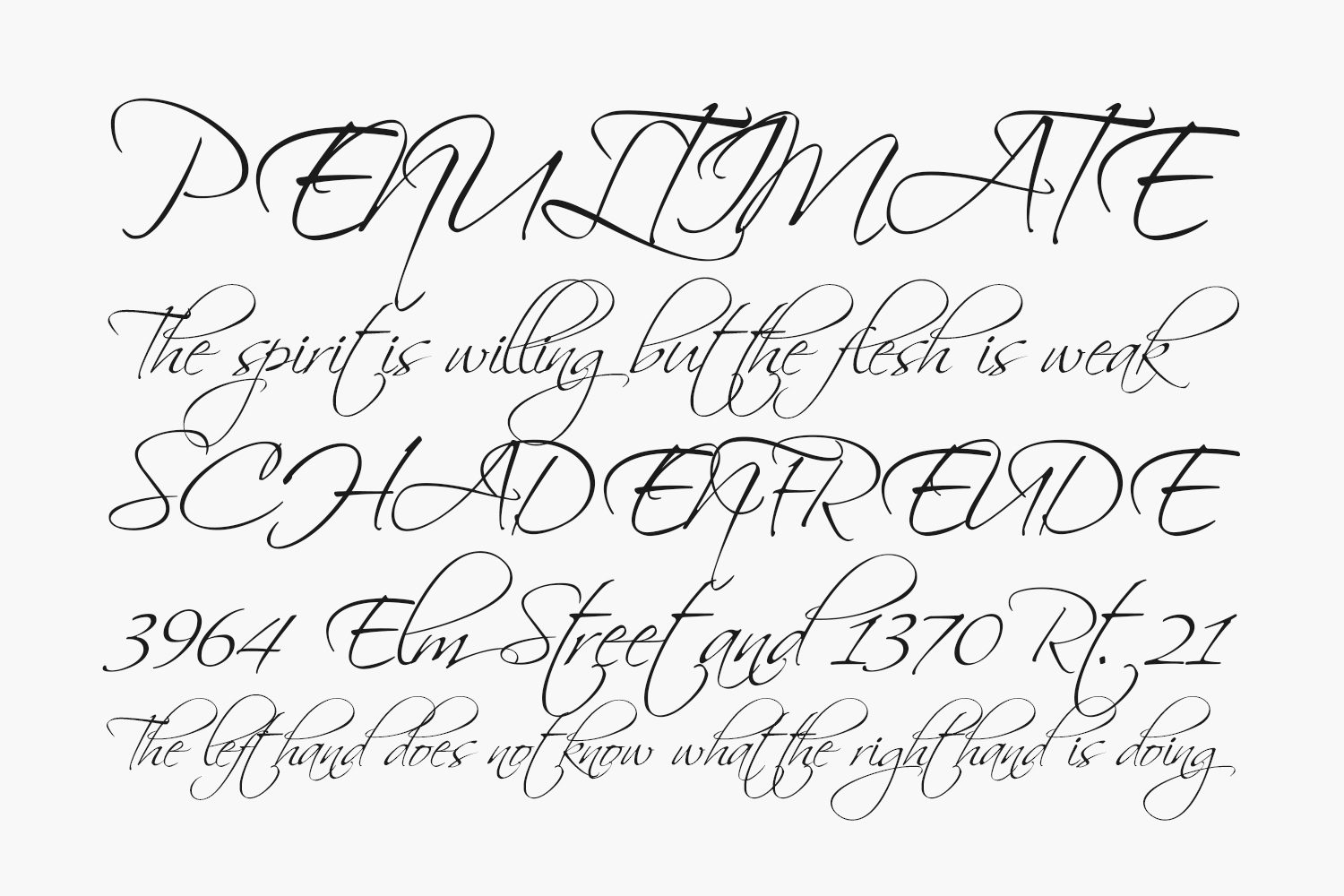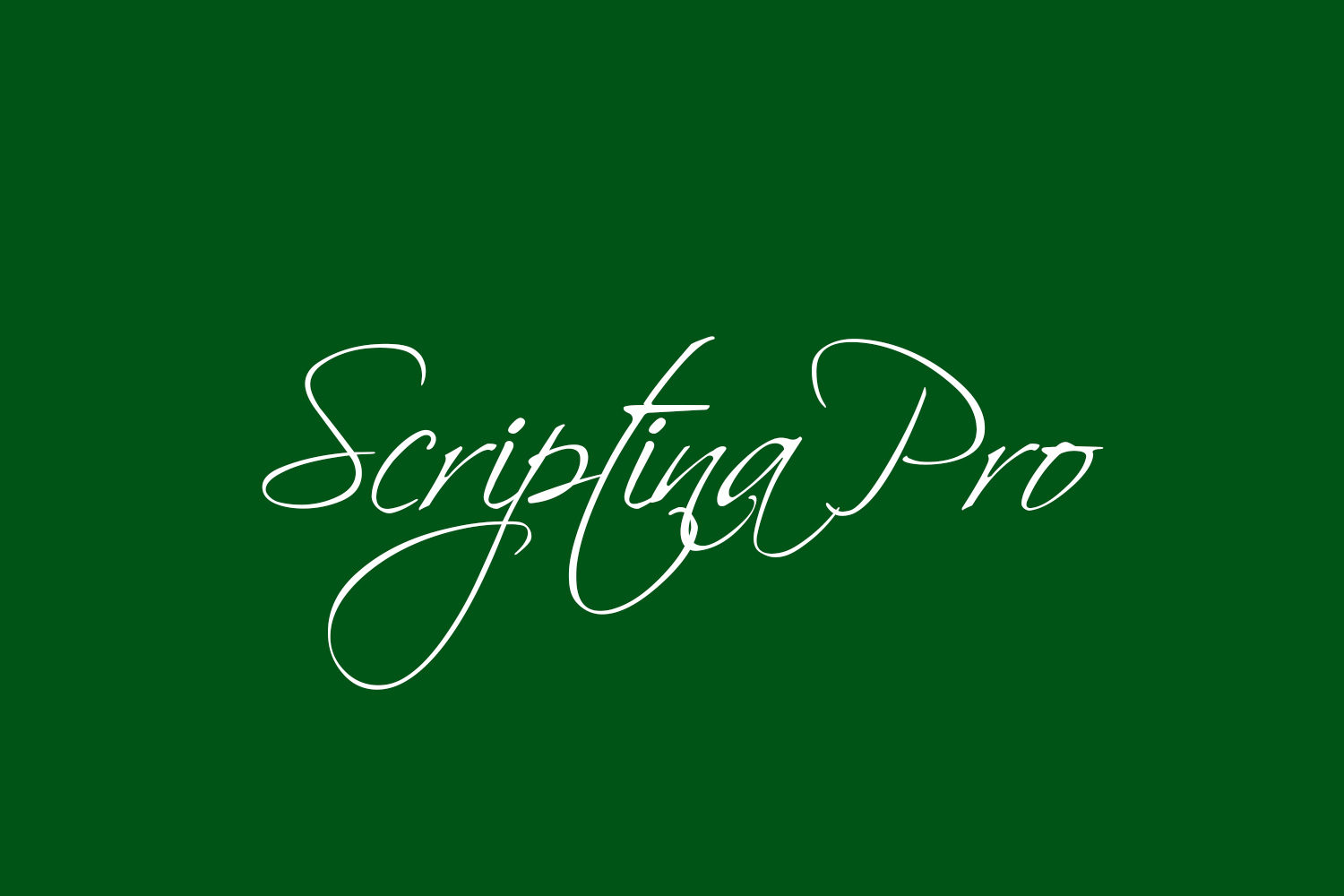
This is the 100th font released by CheapProFonts, and I wanted to make something special – so I have chosen to upgrade one of the most popular free fonts ever: the one and only Scriptina by the infamous Fredrick “Apostrophe” Nader!
After first cleaning up the outlines, spacing and kerning, Scriptina Pro Free Font has been expanded with a set of alternate letters without the loops and swashes, using the OpenType contextual alternates feature to switch them around automatically to avoid too many overlapping and repeating elements. You can also manually turn off the loops and swashes with the OpenType titling and swash features respectively. The originals alternate letters have been incorporated as stylistic alternates (and stylistic set 02) and the ligatures as discretionary ligatures if you should want them. The alternate non-script lowercase z is programmed as stylistic set 01.
In addition Scriptina Pro has been given the usual CheapProFonts large multilingual character set, of course. I hope many will enjoy the improvements and additional language support.